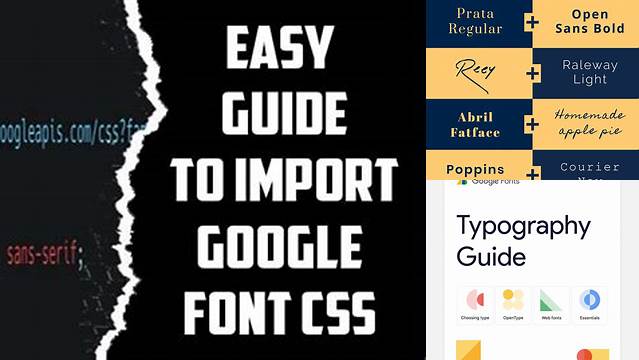
Google Fonts CSS: Your Guide To Web Typography
Understanding Google Fonts CSS: The Foundation of Web Design
Hey guys! Let's dive deep into the awesome world of Google Fonts CSS. If you're building websites, you know how crucial typography is. It’s not just about making text readable; it's about setting the entire mood and personality of your site. Google Fonts offers an incredible library of free, high-quality fonts that you can easily integrate into your web projects using CSS. This isn't just a quick fix; it's a fundamental tool for any designer or developer looking to elevate their online presence. We're talking about literally thousands of fonts, from elegant serifs to modern sans-serifs, all optimized for the web. The beauty of using Google Fonts CSS is its simplicity and power. You don't need to be a font expert to use them effectively. The process usually involves linking a stylesheet from Google's servers into your HTML, and then referencing the font family names in your CSS. It’s a straightforward way to access a vast typographic palette that would otherwise be expensive or complicated to implement. Think about the impact a well-chosen font can have – it can make your content feel more trustworthy, more engaging, or even more playful, depending on your brand. Google Fonts CSS makes achieving these results accessible to everyone, regardless of budget or technical expertise. We'll explore how to find the perfect font, how to implement it smoothly, and some best practices to ensure your website looks fantastic and performs well. So, buckle up, and let's get your text looking its absolute best with the magic of Google Fonts CSS!
The Essential Role of Google Fonts CSS in Modern Web Design
Alright folks, let's talk about why Google Fonts CSS is an absolute game-changer in modern web design. In today's digital landscape, first impressions are everything, and typography plays a starring role. It’s the silent voice of your brand, conveying tone, professionalism, and aesthetic appeal. Google Fonts, through its CSS integration, provides an unparalleled resource for web designers and developers. It democratizes beautiful typography, making sophisticated font choices available to everyone, from solo entrepreneurs to large corporations, without the hefty licensing fees often associated with premium fonts. The CSS aspect is key here; it's the bridge that connects these amazing typefaces to your website. By using simple CSS rules, you can call upon a font family from Google's vast library, instantly transforming the look and feel of your site. This ease of integration means you can experiment with different styles, match your brand's personality, and ensure your content is not only readable but also visually captivating. Whether you're aiming for a minimalist, clean aesthetic or a bold, attention-grabbing design, Google Fonts CSS has the versatility to support your vision. Moreover, these fonts are optimized for web use, meaning they load efficiently and display consistently across different browsers and devices. This reliability is crucial for user experience, as slow-loading or poorly rendered fonts can drive visitors away. So, understanding and leveraging Google Fonts CSS isn't just about aesthetics; it's about building a better, more professional, and more engaging online experience for your audience. We'll delve into how to select the right fonts, implement them correctly, and even explore some advanced techniques to make your typography truly shine. Get ready to supercharge your web design with the power of Google Fonts CSS!
How to Implement Google Fonts CSS Seamlessly on Your Website
So, you've found the perfect font on Google Fonts, and now you're wondering, "How do I actually get this onto my website?" Don't sweat it, guys! Implementing Google Fonts CSS is surprisingly straightforward. The most common and recommended method is through a simple <link>
tag in your HTML's <head>
section or by using an @import
rule within your CSS file. Let's break down the link method first. Head over to the Google Fonts website, select your desired font(s), and click on the 'Get font' button. Google will then present you with different ways to use the font. For the CSS method, you'll see a code snippet that looks something like this: <link rel="preconnect" href="https://fonts.googleapis.com"><link href="https://fonts.googleapis.com/css2?family=Open+Sans:wght@400;700&display=swap" rel="stylesheet">
. You simply copy this entire snippet and paste it into the <head>
section of your HTML document. Easy peasy! Once that's in place, you can use the font in your CSS like this: body { font-family: 'Open Sans', sans-serif; }
. The sans-serif
part is a fallback font, which is super important in case the Google Font doesn't load for some reason. Now, let's touch on the @import
method. You can also grab a similar URL from Google Fonts and add it at the very top of your main CSS file using @import url('https://fonts.googleapis.com/css2?family=Open+Sans:wght@400;700&display=swap');
. While this works, Google generally recommends the <link>
tag for performance reasons, as it can be processed more efficiently by browsers. Remember to choose the font weights and styles (like italics) you actually need when generating the link. Loading unnecessary weights can slow down your site, so be judicious! We'll explore font pairing and optimization tips later, but for now, mastering these basic implementation methods is your first big step to unlocking the typographic potential of Google Fonts CSS.
Mastering Font Selection with Google Fonts CSS: Finding Your Perfect Match
Choosing the right typeface can feel like a daunting task, right? But with Google Fonts CSS, the process becomes way more intuitive and enjoyable. The sheer volume of options can be overwhelming at first, but think of it as having an enormous toolbox at your disposal. The key is to understand your project's goals and your brand's personality. Are you aiming for a sophisticated, professional look? Maybe a classic serif like Merriweather or Playfair Display would be ideal. Need something clean, modern, and highly readable for body text? Sans-serifs like Roboto, Lato, or Montserrat are fantastic choices. Google Fonts makes it easy to preview fonts directly on their site. You can type in your own sample text – like your company name or a tagline – and see how different fonts render it. This is a crucial step! Don't just rely on the font name; see it in action. Look at how the letters interact, the spacing, and the overall flow. When selecting fonts, it's often a good idea to choose a pair: one for headings and another for body text. The best font pairings usually involve a contrast in style – perhaps a serif for headings and a sans-serif for body copy, or vice versa. Tools and suggestions on the Google Fonts site can help with this, often highlighting compatible pairings. Consider the font's legibility, especially at smaller sizes. Some decorative fonts might look great in a large headline but become unreadable in a paragraph. Also, think about the font's weights. Having access to various weights (light, regular, bold, black) within a font family, all available through Google Fonts CSS, gives you incredible flexibility for creating visual hierarchy and emphasis. Guys, remember to test your chosen fonts on your actual website mockups, not just on the Google Fonts preview. What looks good on their site might behave slightly differently in your layout. So, take your time, experiment, and trust your eye – finding that perfect font pairing with Google Fonts CSS is a rewarding part of the design process!
Optimizing Google Fonts CSS for Maximum Website Performance
Okay, let's get real for a second, guys. While Google Fonts CSS is amazing, we gotta talk about performance. Loading external fonts can sometimes add a little extra weight to your website, potentially slowing things down. But fear not! With a few smart strategies, you can ensure your site remains lightning-fast while still enjoying beautiful typography. The first golden rule is only load what you need. When you select fonts on Google Fonts, it lets you choose specific weights and styles (like italic or bold). Don't just check every box thinking you might use it later. Stick to the weights you actually use in your design. Loading the regular, bold, and perhaps one italic version is often sufficient. Loading the entire font family can significantly increase load times. Another crucial optimization is using the preconnect
resource hint. You'll notice this in the code snippets Google provides: <link rel="preconnect" href="https://fonts.gstatic.com/">
. This hint tells the browser to establish an early connection to Google's font servers, which can speed up the font download process once the main stylesheet is requested. Make sure it's included! Furthermore, consider font display strategies. You can control how text is displayed while the font is loading using the font-display
CSS property. Setting it to swap
(e.g., font-display: swap;
in your CSS) is a popular choice. This tells the browser to show a fallback font immediately while the Google Font is loading, and then swap it in once it's ready. This prevents that dreaded blank text or